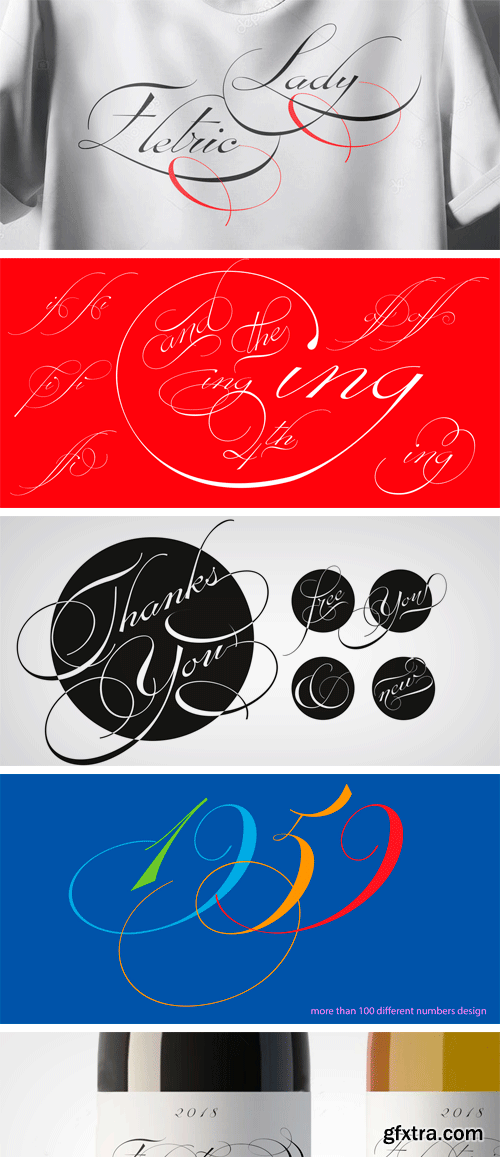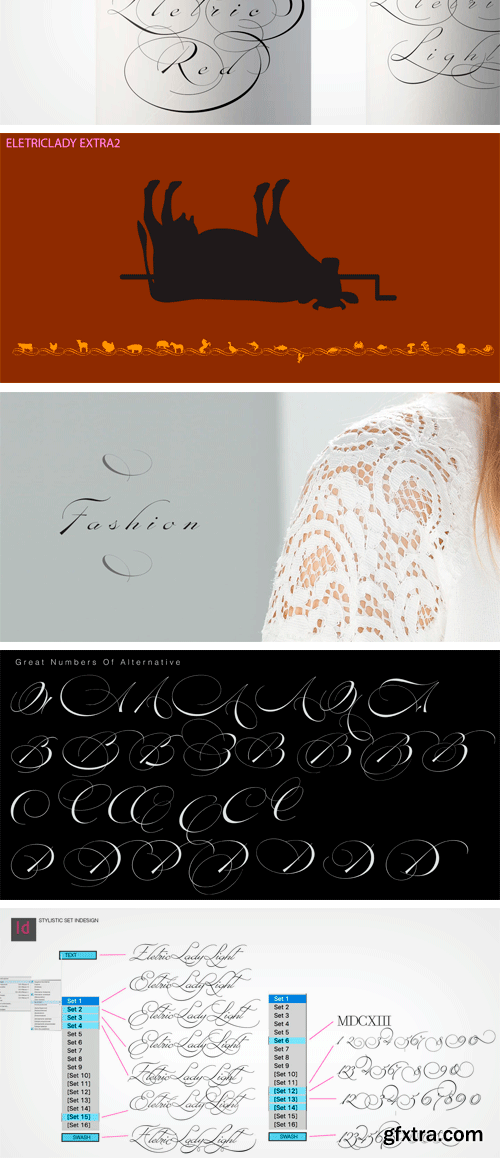
Electric Lady in a light script with a great amount of different possibilities. With Electric Lady font family you can to turn on various features (Ligatures, Stylistic Alternates, Contextual Alternates, Swashes, 3 completely different Stylistic set) to auto swap out letter sets with alternate versions.